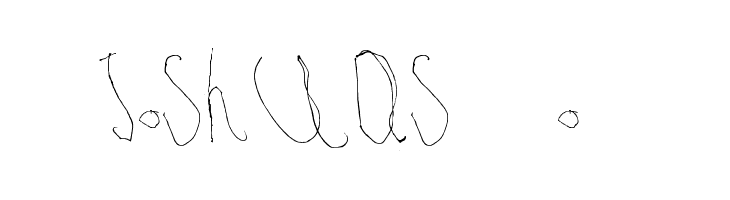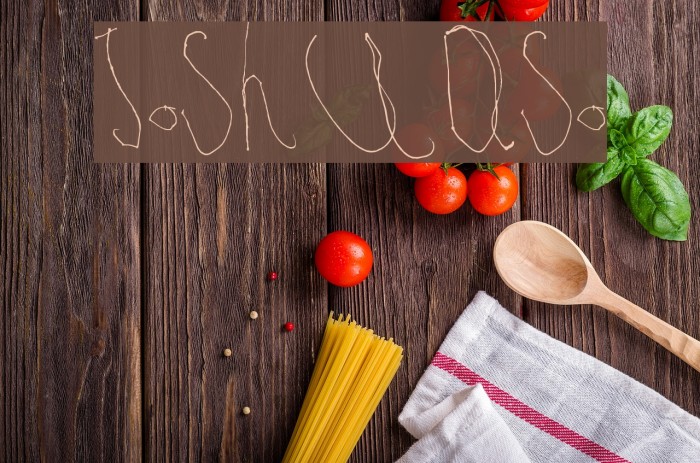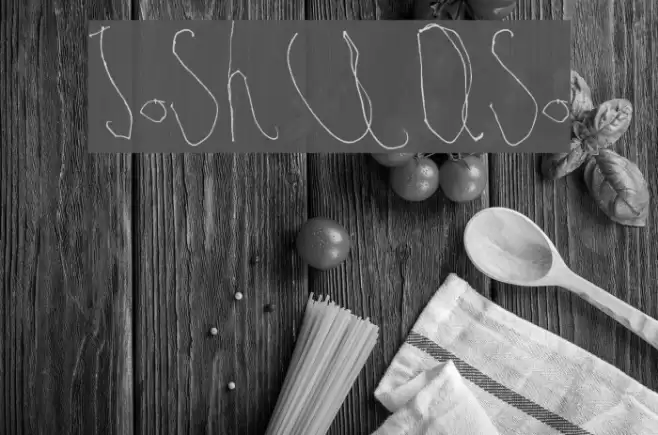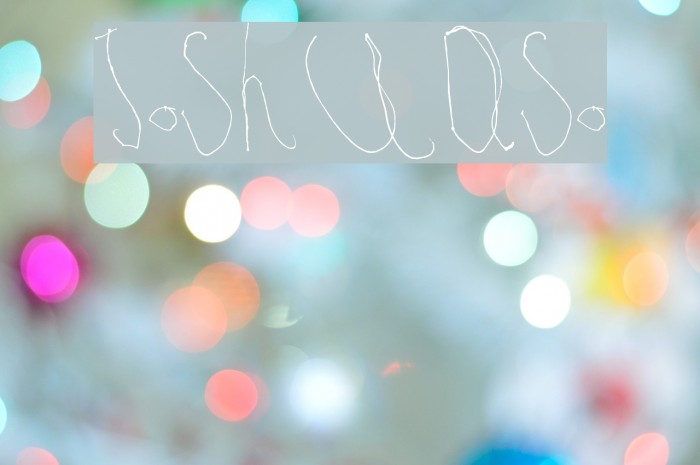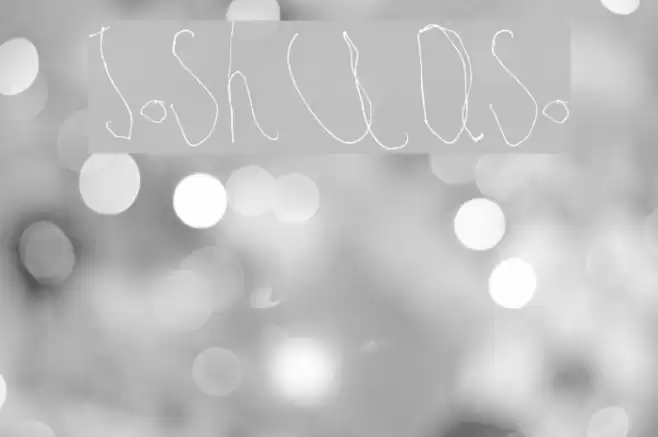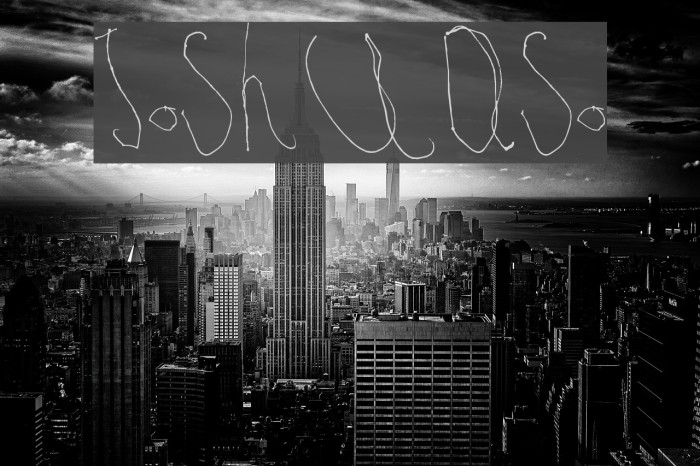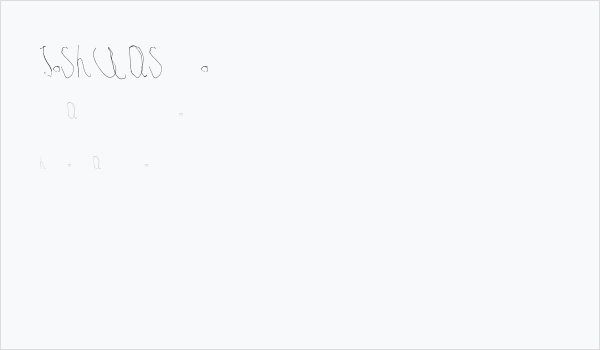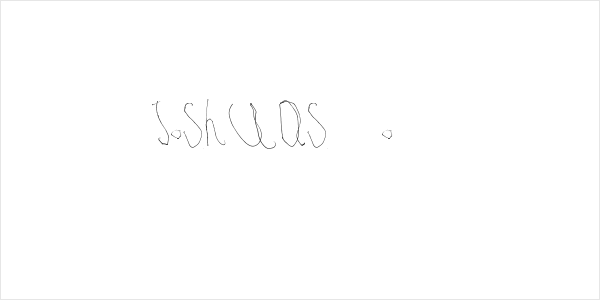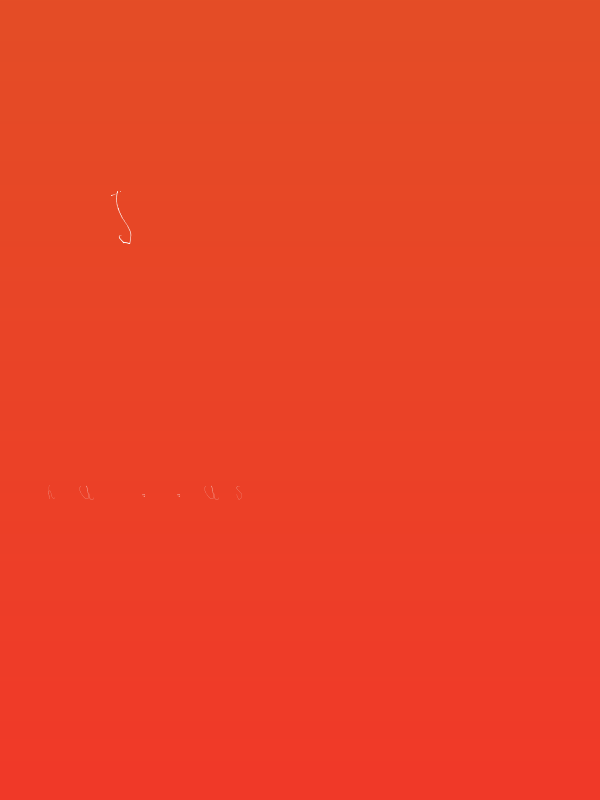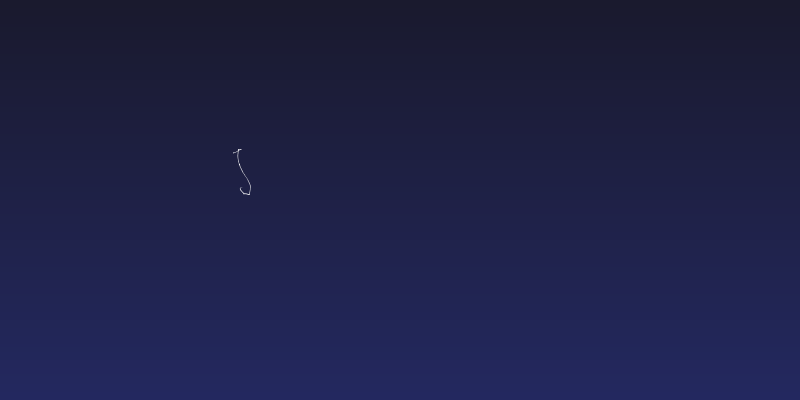
Joshuas Font Font
Joshuas Font Description
This appears to be a collection of hand-drawn characters with a whimsical and informal style. The strokes are uneven and vary in thickness, giving it a playful and artistic appearance. The letters are not uniformly aligned, adding to the casual and spontaneous feel. This style is reminiscent of a personal handwriting or doodle, with a unique charm that is both expressive and creative.
Use CaseArtistic projects, personal notes, creative designs.
Proposed ProjectsIdeal for creative projects such as greeting cards, children's book illustrations, or personal art projects where a casual and artistic touch is desired.